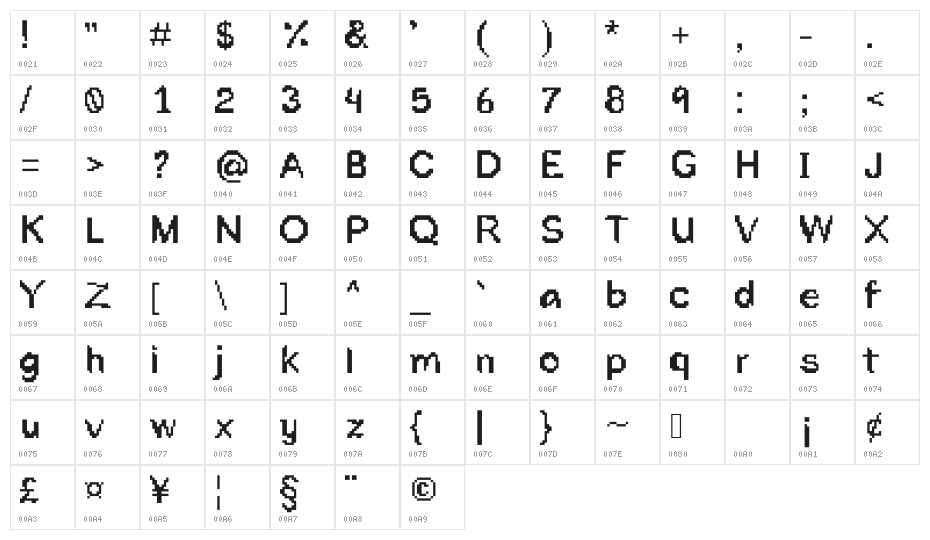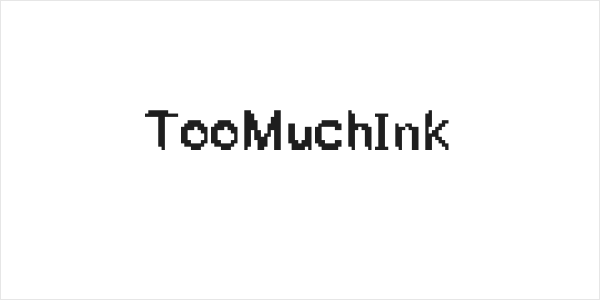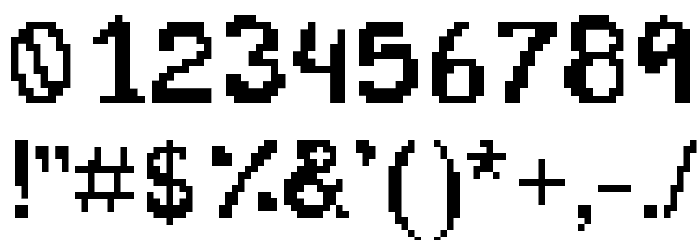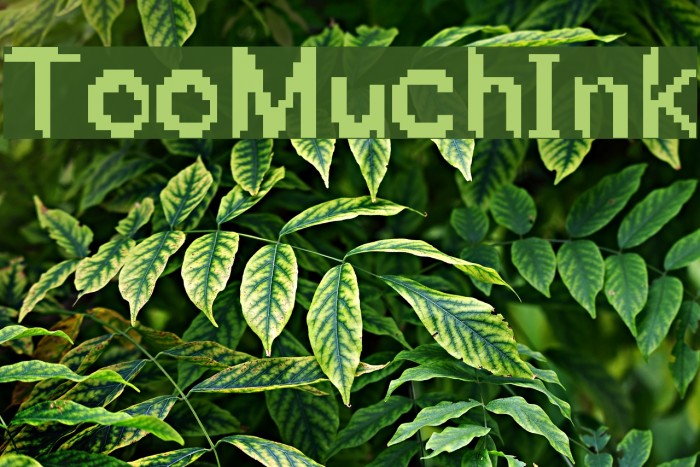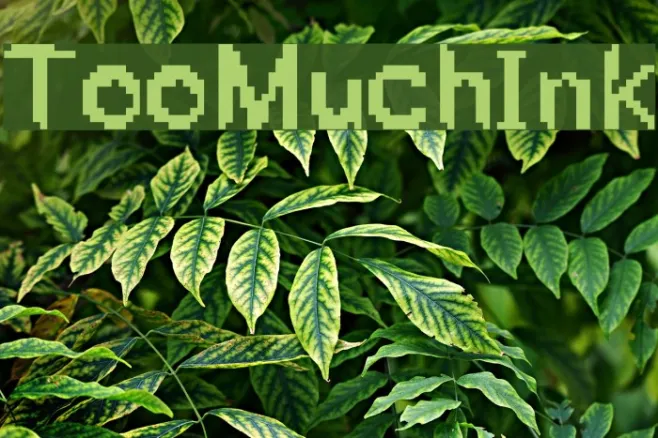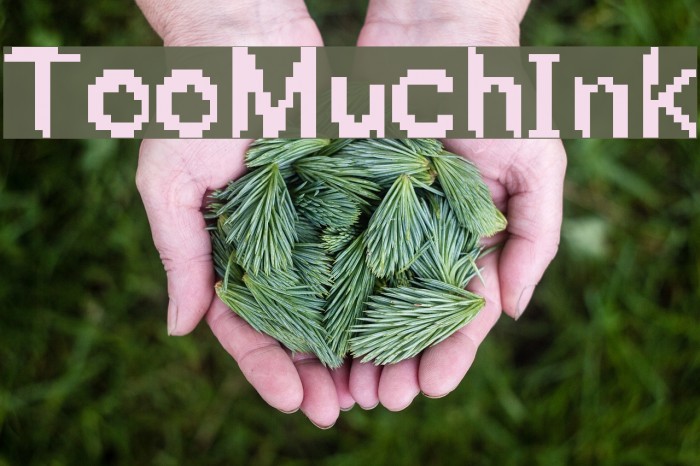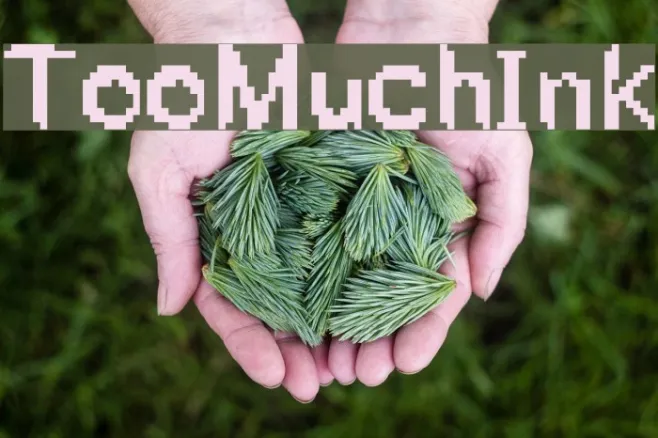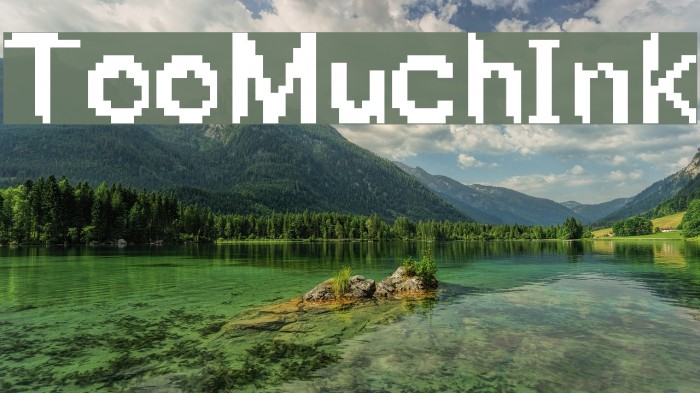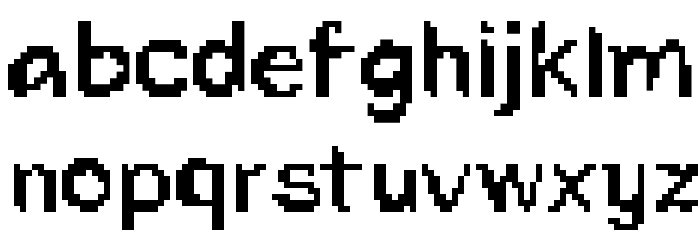
TooMuchInk Font
TooMuchInk Description
This font features a bold, pixelated style reminiscent of early digital displays and retro video games. Its blocky, square-shaped characters give it a distinctive, nostalgic appearance. The uppercase and lowercase letters maintain a consistent height, contributing to a uniform look. Numbers and special characters follow the same pixelated design, ensuring a cohesive aesthetic throughout. The font's simplicity and clarity make it highly legible, even at smaller sizes, while its unique style adds a playful, vintage touch to any project.
| Use Case | Headlines, Logos, Digital Art |
| Proposed Projects | Ideal for retro-themed designs, video game graphics, digital art projects, and nostalgic branding. |